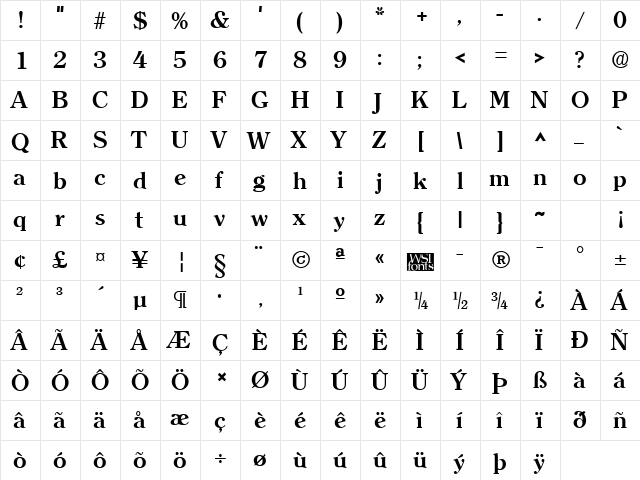
ClearlyRoman Bold Font Preview
ClearlyRoman Bold
Design Context for ClearlyRoman Typeface
ClearlyRoman takes a measured approach to typography — its balanced proportions and neutral character make it a reliable workhorse for both digital and print work. Its bold stroke weight gives it real presence on the page.